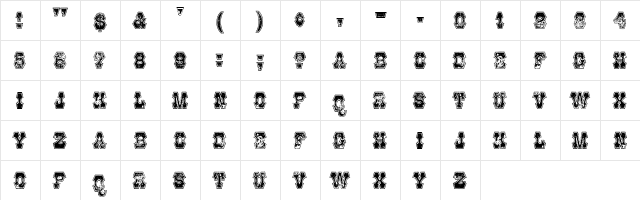
Thunder Mountain WF Regular
| Designer | Walden Font Co. |
Design Context for Thunder Mountain WF Typeface
Thunder Mountain WF is a composed and adaptable typeface that performs quietly and consistently across a wide range of design contexts.